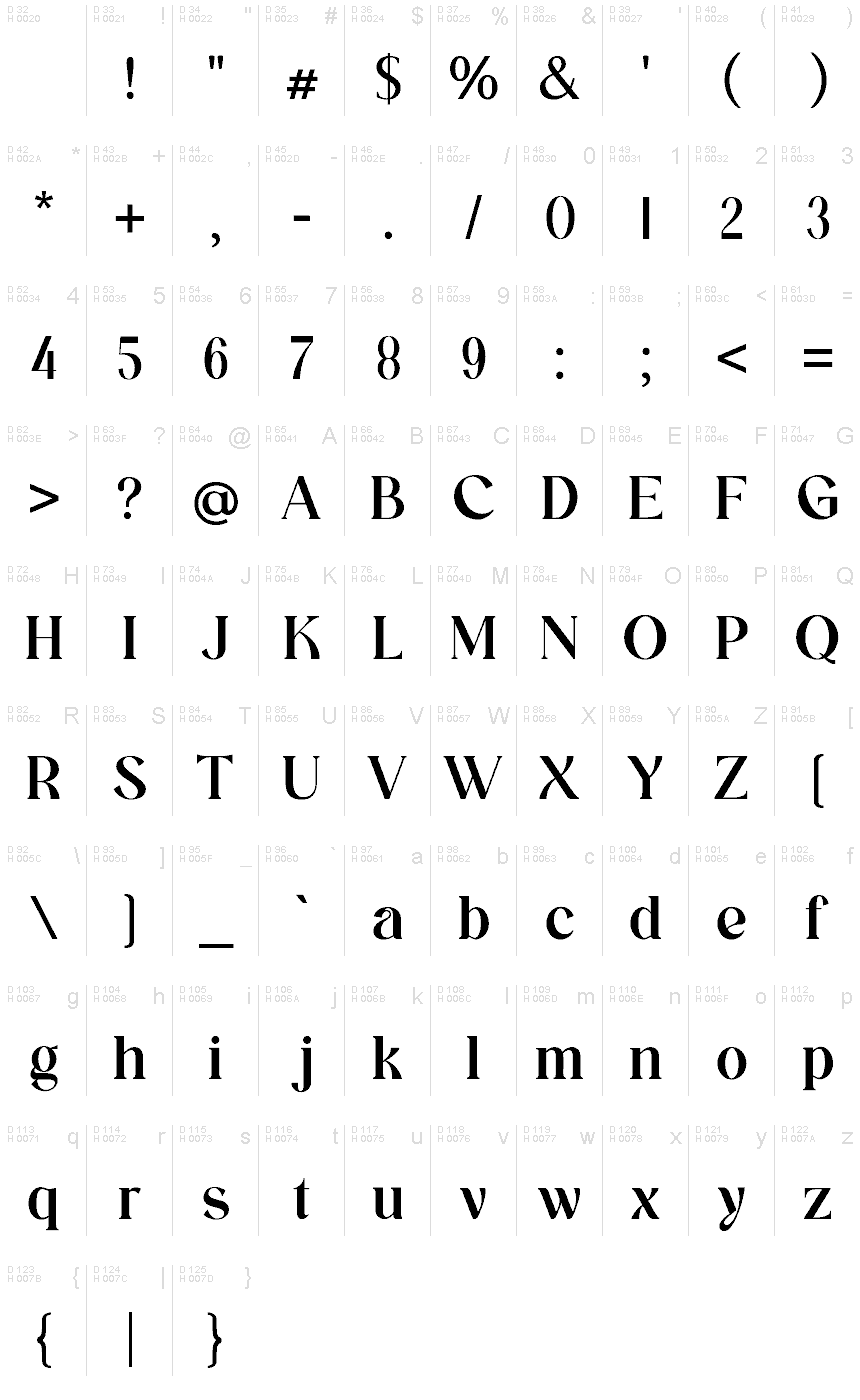
Sophia Francesca Regular
Sophia Francesca font by UI Creative is an elegant and sophisticated serif font that communicates class, beauty, and virtue. Its classic letters are decorated with ornamental designs bringing the special effect you seek in every word. What adds even more value with a visual angle to Sophia Francesca is its high contrast made of thick and thin stems which add a delicate taste great for timeless projects.
There’s an unlimited number of uses to this font if you have designer eyes. Logo design is one usage of course; however, book covers, album covers, posters, flyers, advertisements magazines along with fashion branding all work magic too.